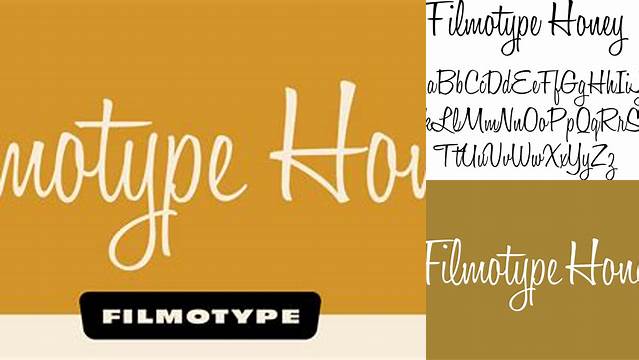
Alright guys, let's talk about the Filmotype Honey font! If you're on the hunt for a font that screams retro charm and vintage vibes, you've hit the jackpot. This typeface is a real gem, bringing a touch of nostalgic sweetness to any design project. We're going to dive deep into why this font is so awesome, where you can snag a free download, and how you can use it to make your projects pop. So, buckle up, creative folks, because we're about to explore the wonderful world of Filmotype Honey!
The Sweet Allure of Filmotype Honey Font: A Design Darling
The Filmotype Honey font is, without a doubt, a standout in the world of vintage-inspired typography. Its design evokes a sense of warmth and friendliness, reminiscent of handcrafted signs and advertisements from the mid-20th century. This isn't just any font; it's a carefully crafted piece of digital art that carries a significant amount of personality. The delicate curves, the slightly playful serifs, and the overall organic feel make it incredibly versatile for a range of applications. When you first lay eyes on Filmotype Honey, you'll likely feel a pull towards its inherent charm. It’s the kind of font that makes you want to grab a milkshake and listen to some classic tunes. Its primary appeal lies in its ability to transport viewers back in time, creating an instant connection with a bygone era. This makes it perfect for brands looking to tap into nostalgia or for designers who want to inject a unique, retro aesthetic into their work. The careful attention to detail in each character ensures legibility while maintaining its distinct stylistic flair. It’s a font that doesn't just sit on the page; it tells a story, adding layers of character and emotion to your message. Whether you're designing a logo, a poster, or even a social media graphic, Filmotype Honey has a way of making your design feel more authentic and engaging. Its sweetness isn't just in its name; it's baked into every curve and stroke, making it a truly delightful choice for any creative endeavor. We’re talking about a font that can elevate simple text into a visual masterpiece, bringing a tangible sense of history and artistry to your digital creations. The sheer range of emotions and styles it can convey is remarkable, from casual and inviting to elegant and sophisticated, all with that signature retro touch.
Why Filmotype Honey Stands Out in the Vintage Font Crowd
So, what makes Filmotype Honey really special when you compare it to all the other vintage fonts out there? Well, for starters, it strikes a perfect balance between being distinctly retro and completely usable in modern design contexts. A lot of vintage fonts can sometimes lean too heavily into one extreme – either they're too kitschy and hard to read, or they're so subtle you barely notice they're vintage. Filmotype Honey, however, manages to capture that authentic 1950s and 60s vibe with its brush-script style and rounded forms, without sacrificing legibility. This is crucial, guys! You want a font that looks cool and unique, but you also need your message to be clear. Another key factor is its versatility. While it undeniably shines in retro-themed designs, it’s surprisingly adaptable. Think about it: you can use it for branding for a bakery, a coffee shop, a record store, a boutique, or even a cool indie film poster. It has this inherent warmth and approachability that draws people in. The subtle imperfections and variations in stroke weight give it a handcrafted feel, making your designs look less corporate and more personal, more human. This authenticity is something many brands are actively seeking today. Plus, the range of characters and ligatures often found in high-quality digital versions of historical fonts like this means you get a lot of creative control. You can really make the text sing and flow naturally. It’s not just about the basic alphabet; it’s about the nuances that bring a design to life. The combination of its unique stylistic signature and its practical design makes Filmotype Honey a go-to choice for designers looking to add that extra sprinkle of vintage magic without compromising on professionalism or readability. It's a font that commands attention in a charming, understated way, making it a true standout.
Creative Applications: Where Filmotype Honey Shines
Okay, so you've got the scoop on the Filmotype Honey font and maybe even scored a free download (with the right license, of course!). Now, let's brainstorm all the awesome ways you can use this delightful typeface. Its retro charm makes it a powerhouse for certain types of projects. Think about branding for businesses that want to evoke a sense of nostalgia, authenticity, and a friendly, approachable vibe. A classic diner, a vintage clothing store, a artisanal bakery, or a quirky coffee shop would all benefit immensely from the warm embrace of Filmotype Honey in their logo and signage. It instantly communicates a certain aesthetic and personality that resonates with customers looking for that old-school feel. Beyond branding, Filmotype Honey is fantastic for creating eye-catching posters and flyers. Imagine a concert poster for a retro-themed band, an event announcement for a vintage fair, or even a special menu for a holiday promotion. The font’s script-like quality adds a dynamic and engaging element that draws the viewer’s attention. It’s also a great choice for packaging design. If you're selling a product that wants to stand out on the shelf with a unique, handcrafted feel, consider using Filmotype Honey for your labels or packaging artwork. It can make even a simple product feel special and artisanal. And let's not forget about digital design! Websites, social media graphics, blog headers, and even email newsletters can get a serious dose of vintage flair with this font. A beautifully set headline in Filmotype Honey can make your content more inviting and memorable. It’s particularly effective for lifestyle blogs, food-related content, or anything with a personal, storytelling angle. Basically, anywhere you want to add a touch of sweetness, warmth, and timeless appeal, Filmotype Honey is ready to play. It’s all about leveraging its inherent character to enhance the overall message and aesthetic of your design. Let your creativity run wild, guys!
Branding Your Business with a Retro Twist
When it comes to branding your business, choosing the right font is like picking the perfect outfit – it speaks volumes before you even say a word. And if you’re aiming for that warm, inviting, and distinctly retro feel, the Filmotype Honey font is an absolute champion. Imagine a local ice cream parlor named “The Sweet Spot.” Using Filmotype Honey for their logo instantly conjures images of classic checkered floors, jukebox music, and friendly service. It's not just a name; it's an experience communicated through typography. For a small, independent bookstore that wants to feel cozy and knowledgeable, perhaps with a touch of old-world charm, Filmotype Honey can add that perfect layer of character to their signage and marketing materials. It suggests a love for literature and a welcoming atmosphere. Think about a craft brewery that wants to emphasize traditional brewing methods or a unique, homemade feel. Filmotype Honey can be integrated into their branding to convey a sense of authenticity and craftsmanship, differentiating them from mass-produced competitors. Even in the digital space, this font works wonders. A website for a vintage furniture restorer or an online shop selling handmade jewelry can use Filmotype Honey for headings and key call-to-actions. It helps build trust and connect with customers who appreciate unique, carefully crafted goods. The key here is consistency. Use Filmotype Honey strategically across your brand touchpoints – from your business cards and website to your social media posts and even your email signature. When used thoughtfully, this font doesn’t just display text; it builds an emotional connection, making your brand memorable and endearing. It’s a powerful tool for creating a brand identity that stands out and resonates deeply with your target audience, all thanks to its inherent retro sweetness.
Designing Engaging Social Media Graphics
Social media is all about grabbing attention fast, guys, and that’s where a font like Filmotype Honey can really make your graphics pop! In the endless scroll of feeds, you need visuals that stop people in their tracks, and this font’s charming retro vibe is perfect for that. Think about creating posts for a local cafe announcing a new seasonal drink. Using Filmotype Honey for the headline, maybe paired with a warm, inviting photo, can instantly communicate coziness and deliciousness. It makes people feel something, and that's what social media engagement is all about. For a boutique clothing store, promoting a sale or a new collection with Filmotype Honey can give their posts a trendy, yet timeless, appeal. It suggests style with a nod to classic aesthetics, attracting customers who appreciate unique fashion. Consider using it for quote graphics too! Inspirational quotes or funny sayings shared in Filmotype Honey can feel more personal and engaging, like a handwritten note from a friend. This font adds a touch of personality that generic sans-serif fonts often lack. Even for event promotion – like a farmer's market, a craft fair, or a vintage market – Filmotype Honey can make your announcement graphics instantly more appealing and relevant to the theme. It sets the mood right from the first glance. When designing, play around with combining Filmotype Honey with simpler, more modern fonts for contrast. This can help your retro elements stand out while ensuring the overall design remains clean and readable. Use it for your main titles, calls to action, or any text where you want to inject a strong dose of personality and retro charm. Remember to keep your image backgrounds complementary – think warm tones, textures, or vintage-inspired patterns. With Filmotype Honey, your social media presence can move beyond basic updates and become a visually delightful experience that truly connects with your audience.
Adding Vintage Flair to Print and Packaging
When it comes to print design and packaging, the tactile and visual experience is paramount. This is where the Filmotype Honey font truly gets to strut its stuff and add that invaluable vintage flair. For product packaging, imagine a small batch jam or artisanal honey being sold at a local market. Applying Filmotype Honey to the label instantly elevates the product, suggesting homemade quality, tradition, and a delightful taste experience. It makes the product feel more special, more cared for, and more authentic than generic, mass-produced alternatives. It’s the kind of packaging that makes customers pause and pick it up. In the realm of print, think about invitations for a wedding or a special anniversary that has a retro theme. Filmotype Honey can be used for the main invitation text, setting a warm, romantic, and nostalgic tone right from the start. It conveys a sense of timeless elegance. For posters advertising a classic film screening or a retro music night, this font is a natural fit. It immediately communicates the event's theme and draws in an audience that appreciates that specific era's aesthetic. Even simple things like menus for a restaurant aiming for a classic feel, or business cards for a photographer specializing in vintage-style portraits, can benefit hugely. The slight imperfections and the flowing script style of Filmotype Honey give print materials a handcrafted, personal touch that’s hard to replicate with other fonts. It makes the physical item feel more substantial and artistically considered. When using it in print, consider pairing it with textured paper stock or classic printing techniques like letterpress to further enhance the vintage effect. The goal is to create a cohesive experience where the typography perfectly complements the physical medium, resulting in a design that is not only visually appealing but also deeply resonant with its intended audience.
The Legacy and Future of Filmotype Honey
Filmotype Honey isn't just a font; it's a piece of design history brought back to life for the digital age. Its origins trace back to the days of Filmotype, a company that specialized in phototypesetting headlines and logos, essentially providing the pre-digital world with ready-made typographic solutions. These fonts were ubiquitous in advertising, movie posters, and branding from the 1950s through the 1970s. The